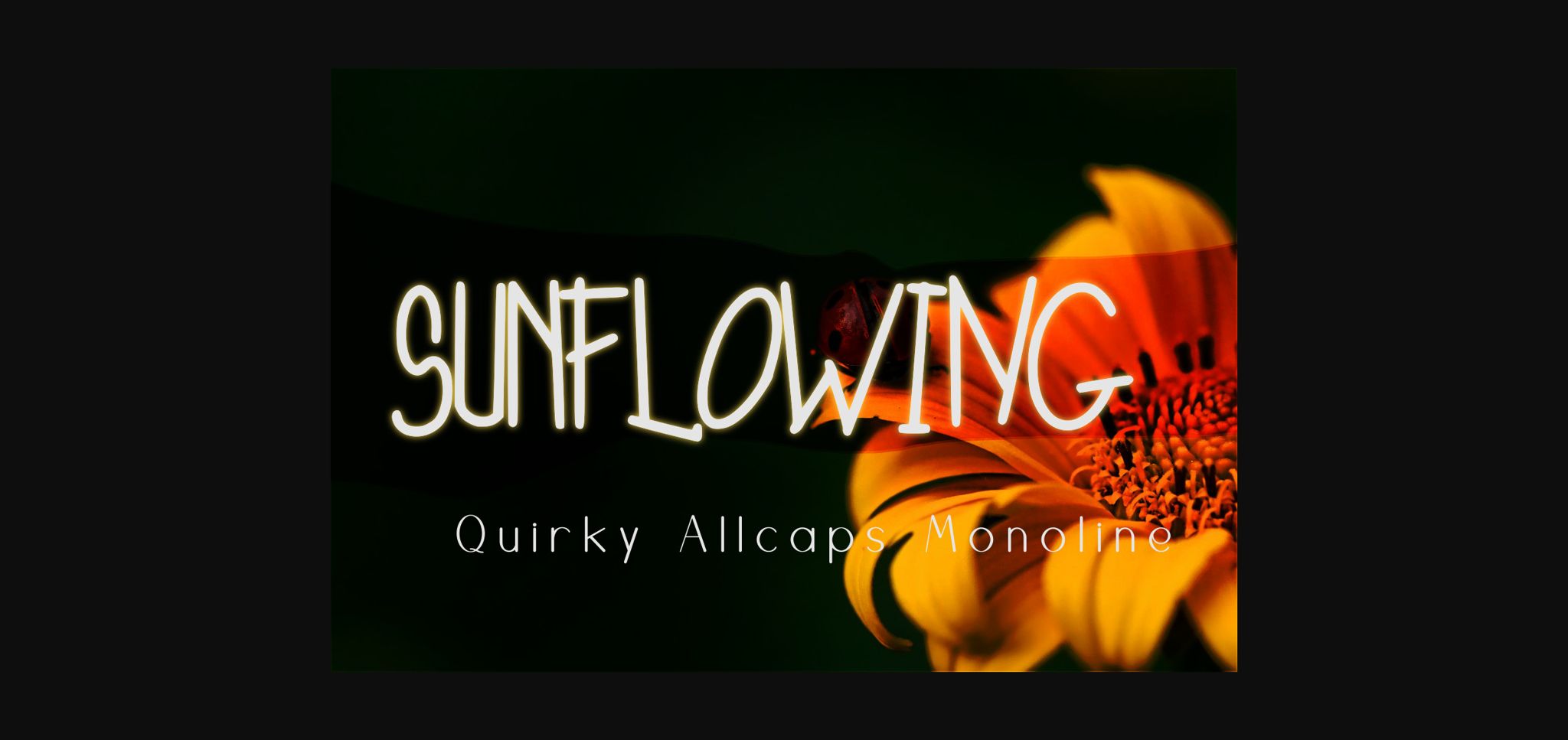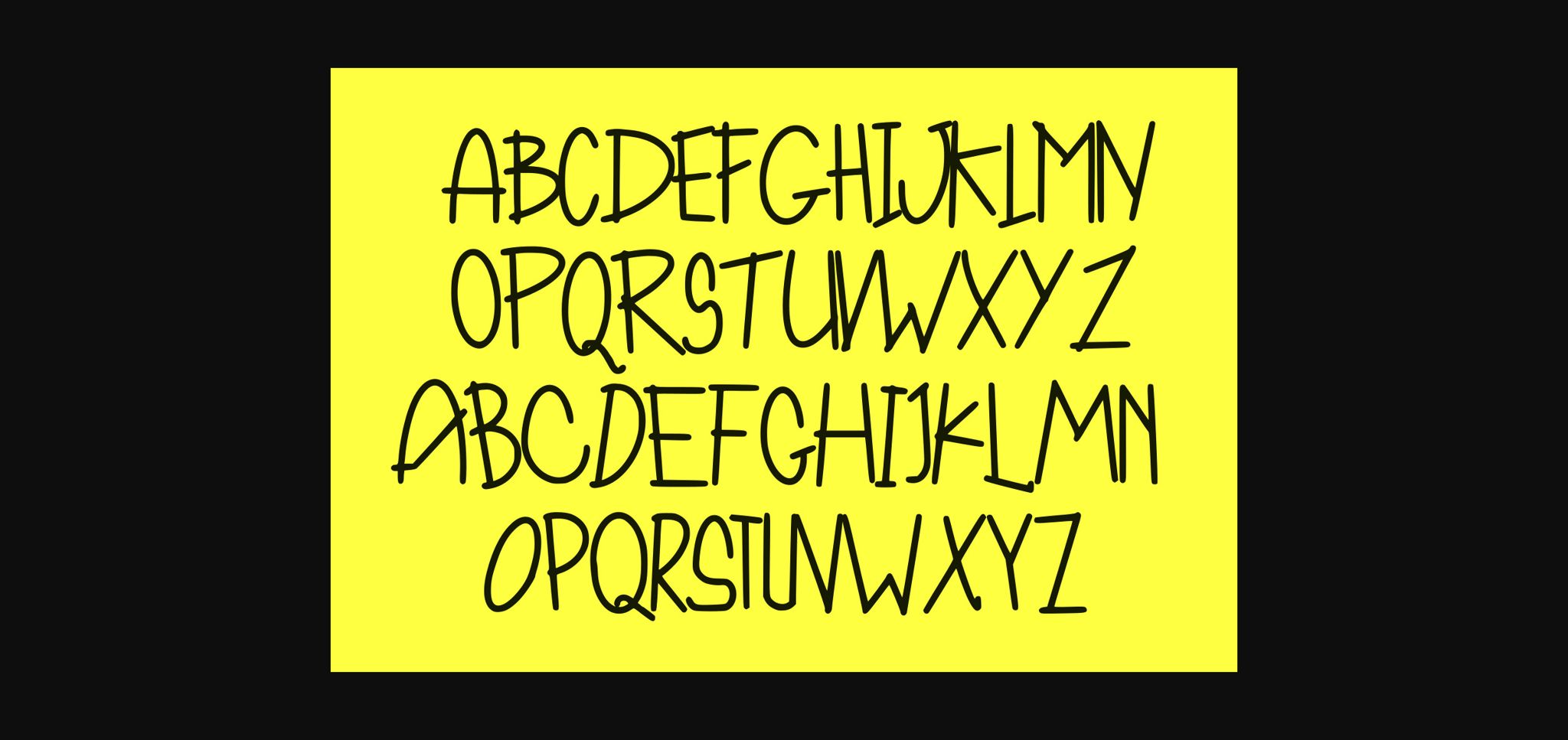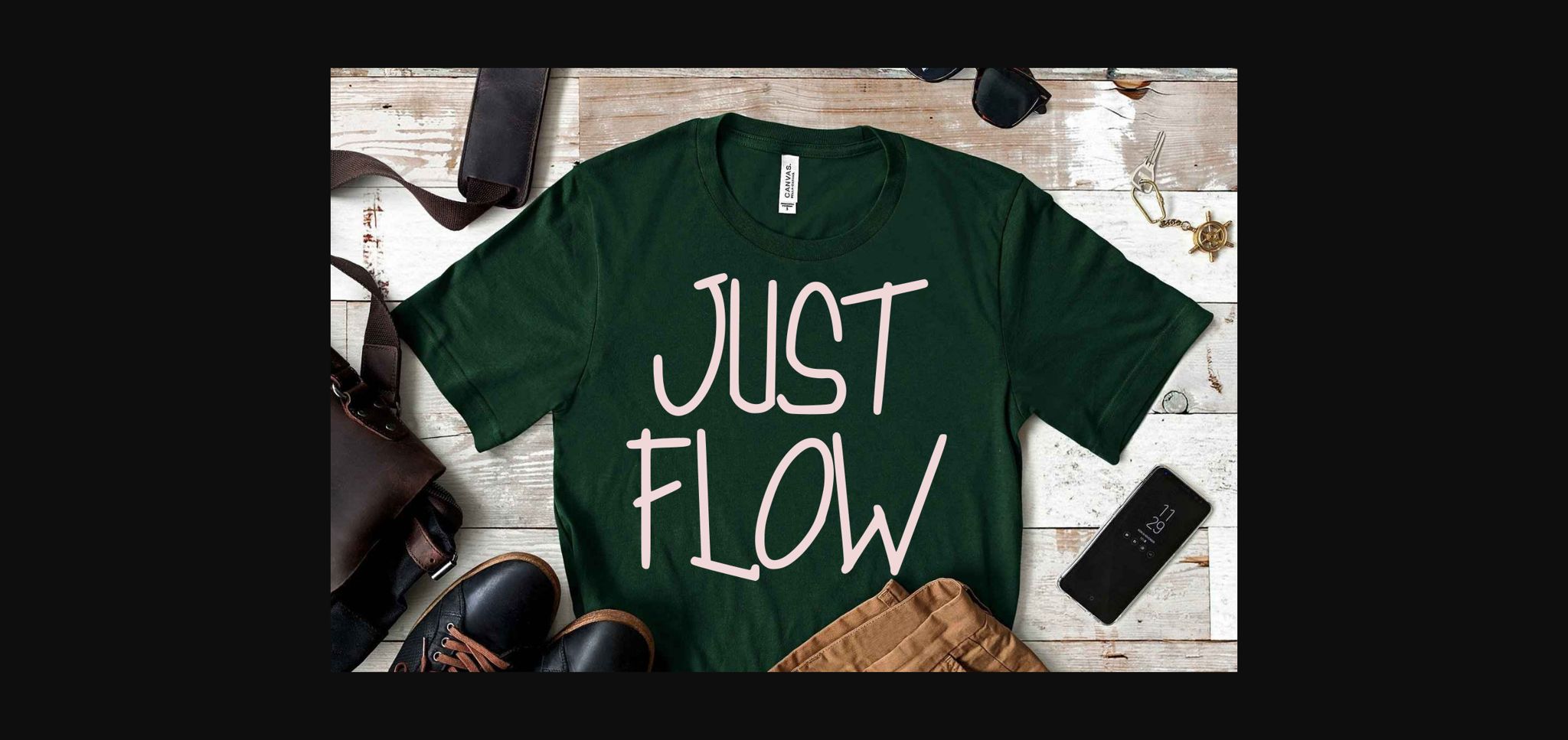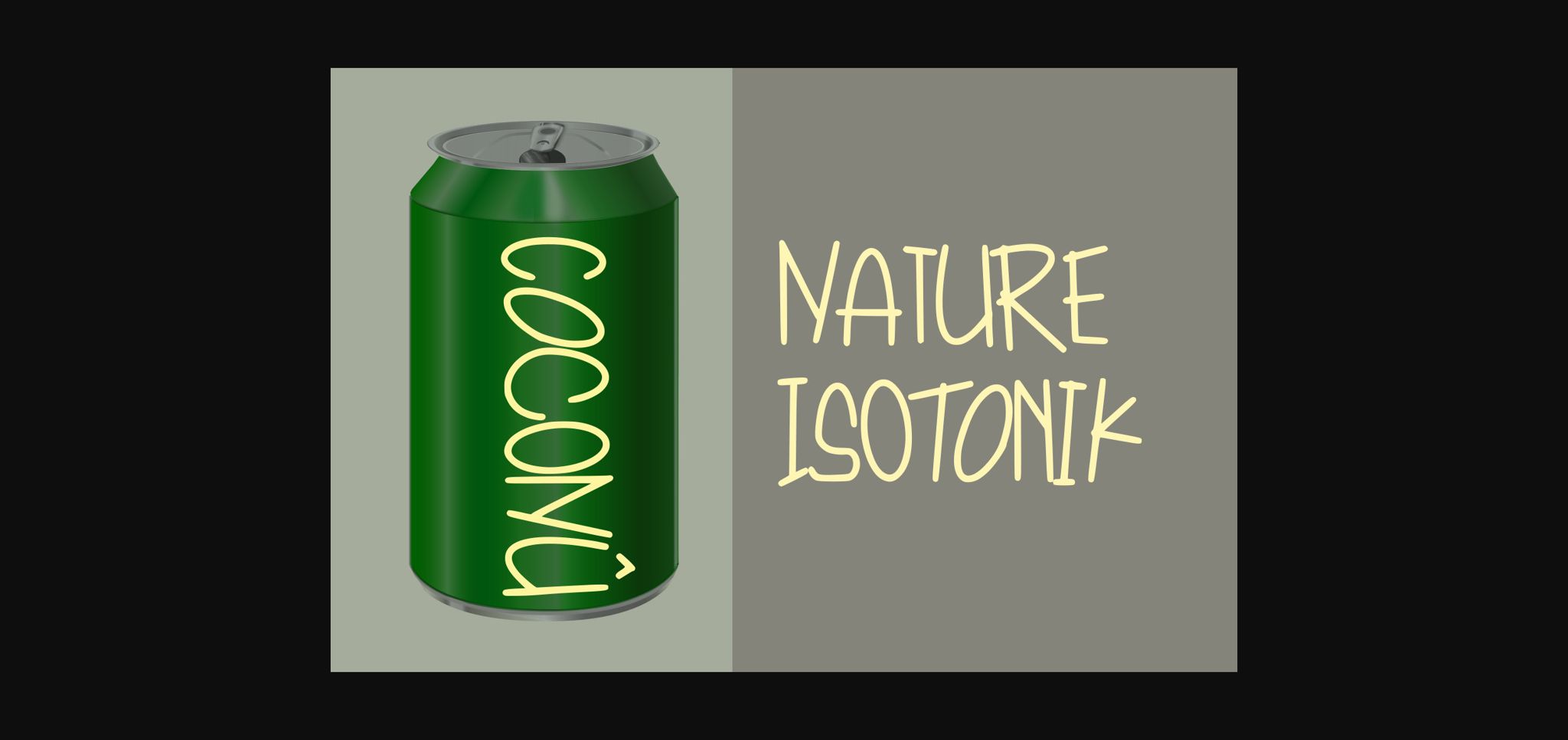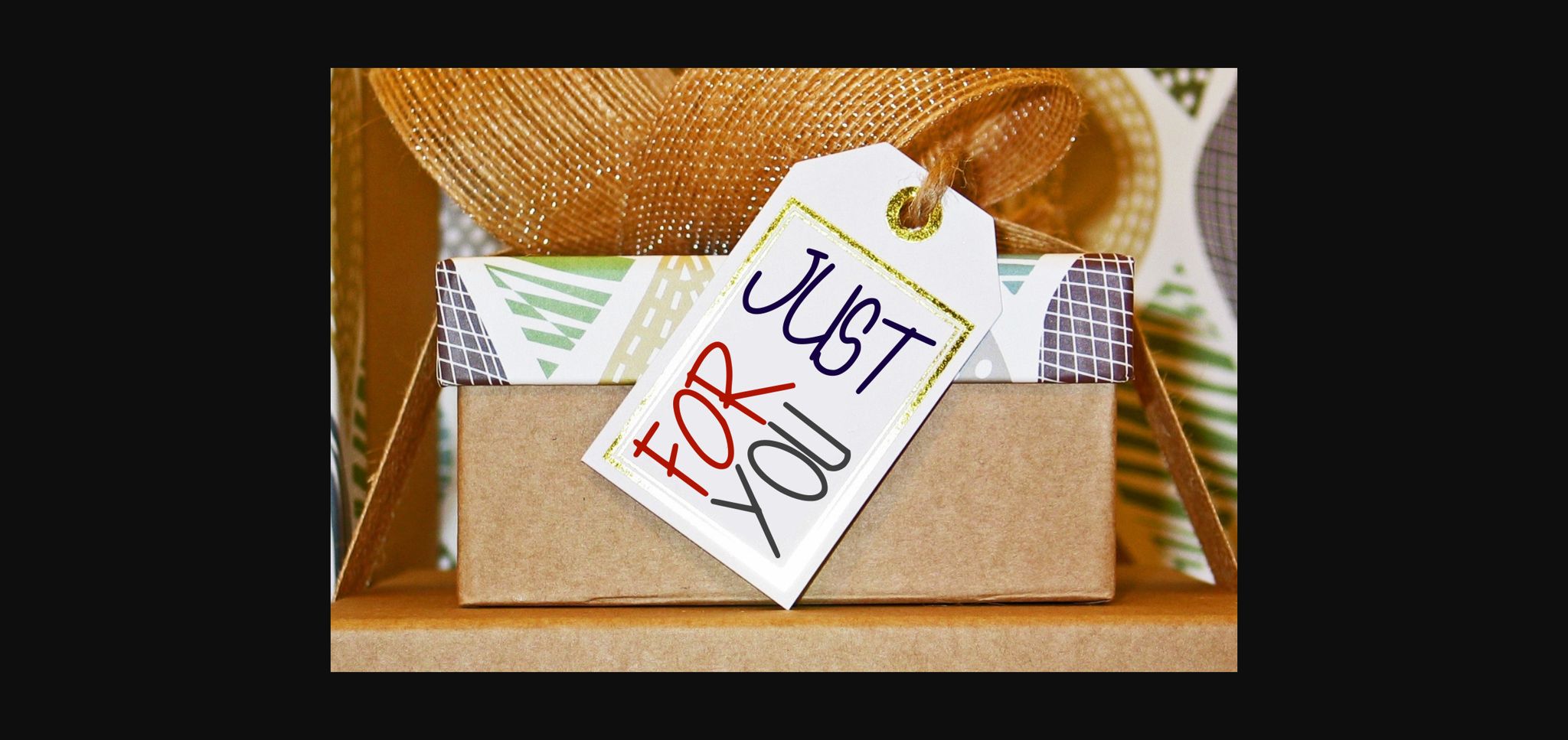
About Sunflowing Font
Sunflowing is a cute and neat sans serif font. It can easily be matched to an incredibly large set of projects, so add it to your creative ideas and notice how it makes them stand out!